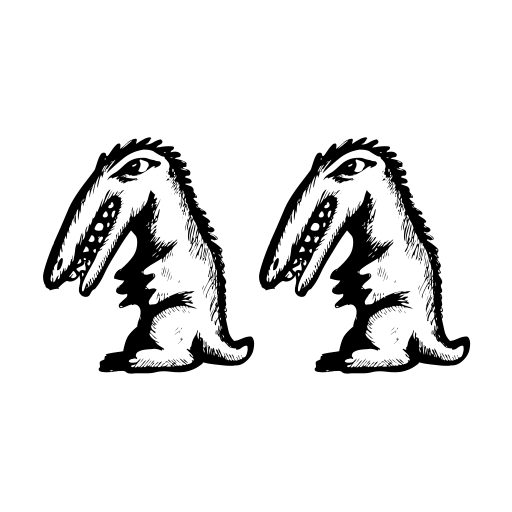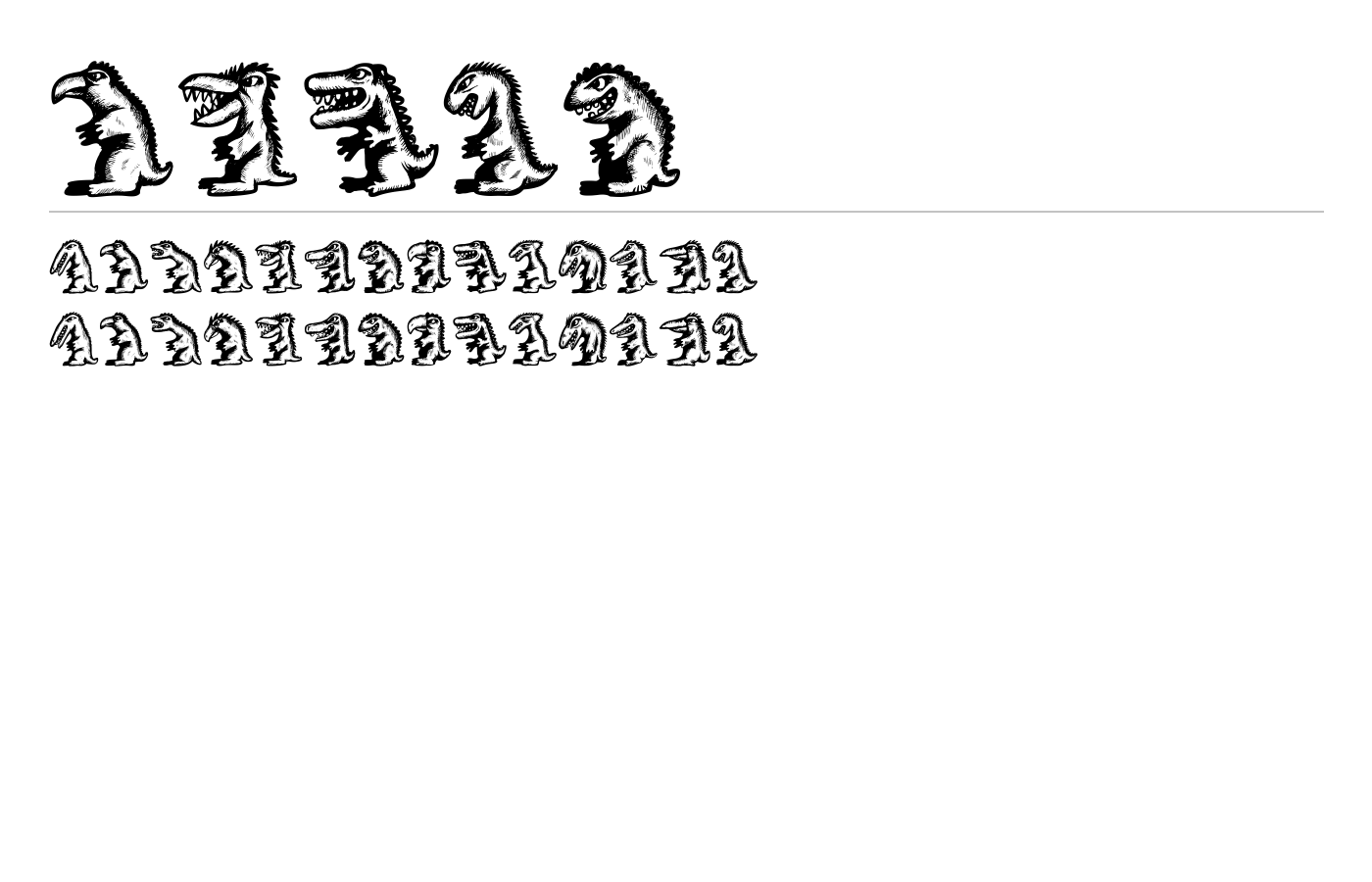
Being Font is a highly decorative and playful display typeface featuring bold, cartoonish dinosaur-like figures instead of traditional letters, designed to grab attention with its whimsical and dynamic style. Its heavy weight and strong black shading give it a striking presence perfect for fun, informal branding, children’s materials, or creative projects seeking a unique and quirky character. This font works best in headlines, logos, or posters where personality and visual impact are key, rather than in body text due to its elaborate and illustrative design.
Being Font
About Being Font
| Font family | Being Font |